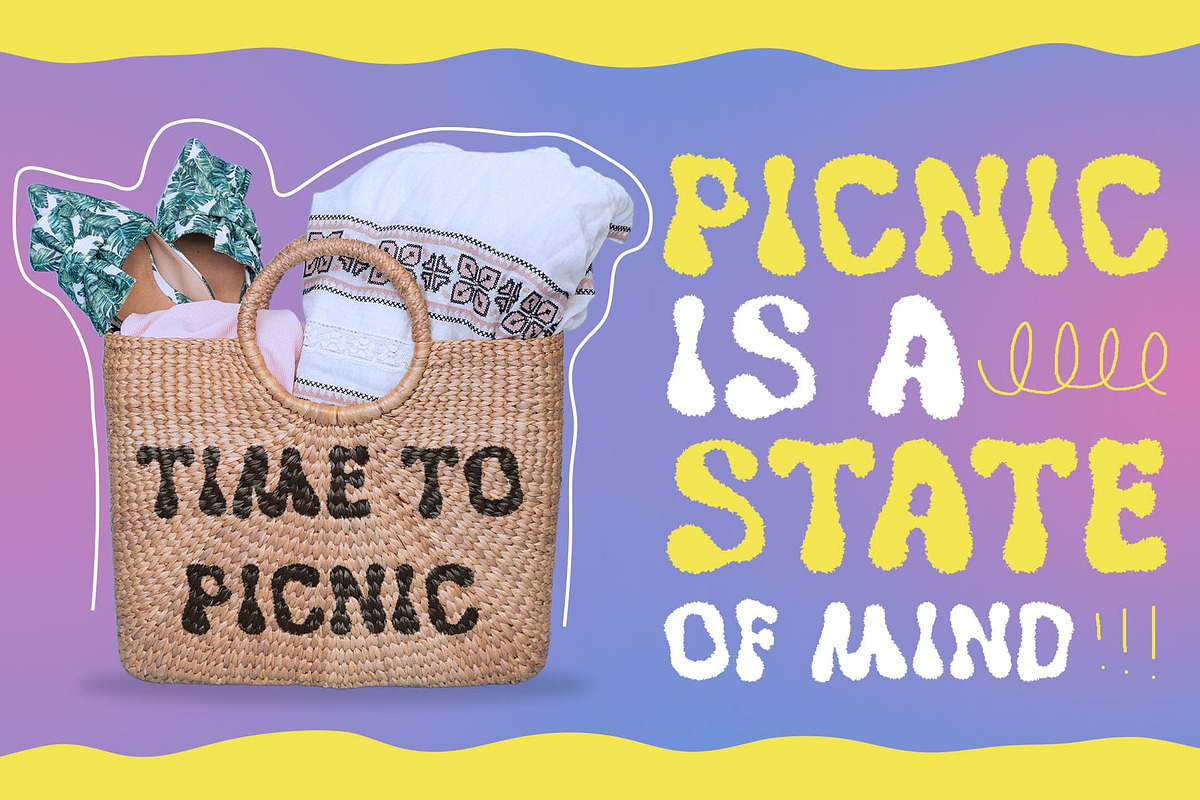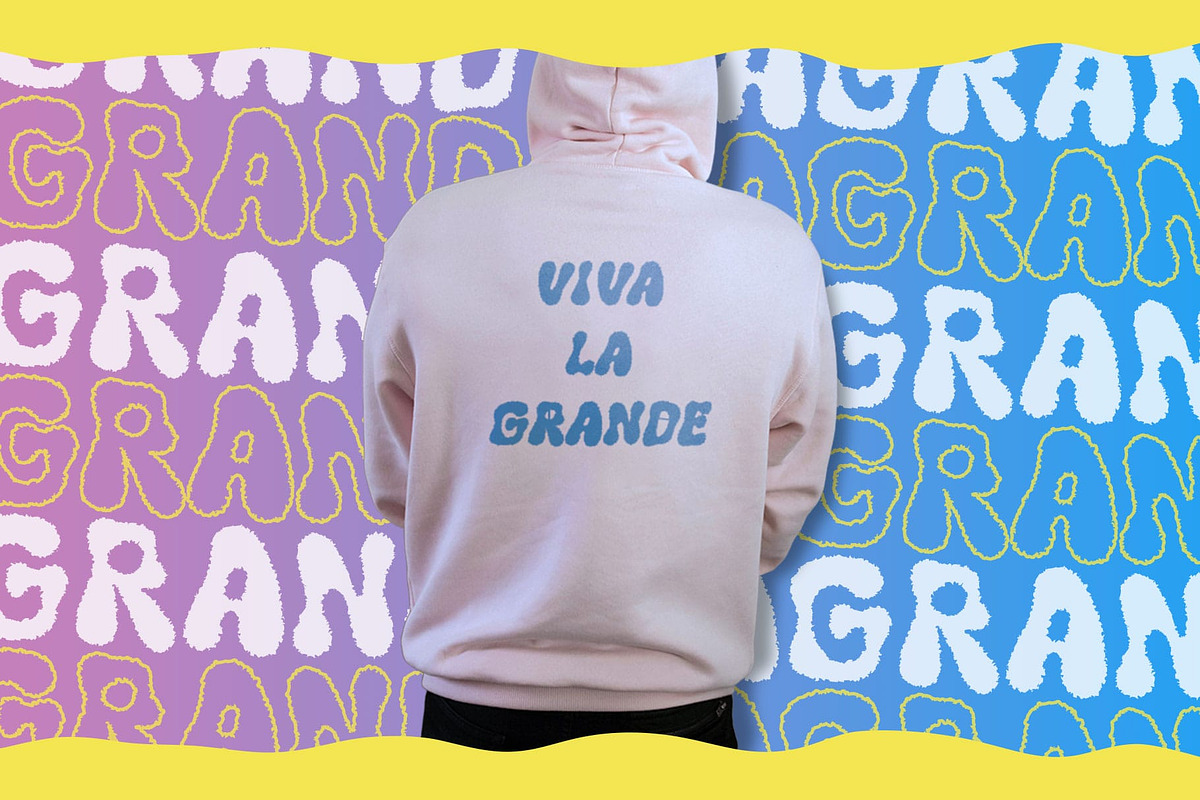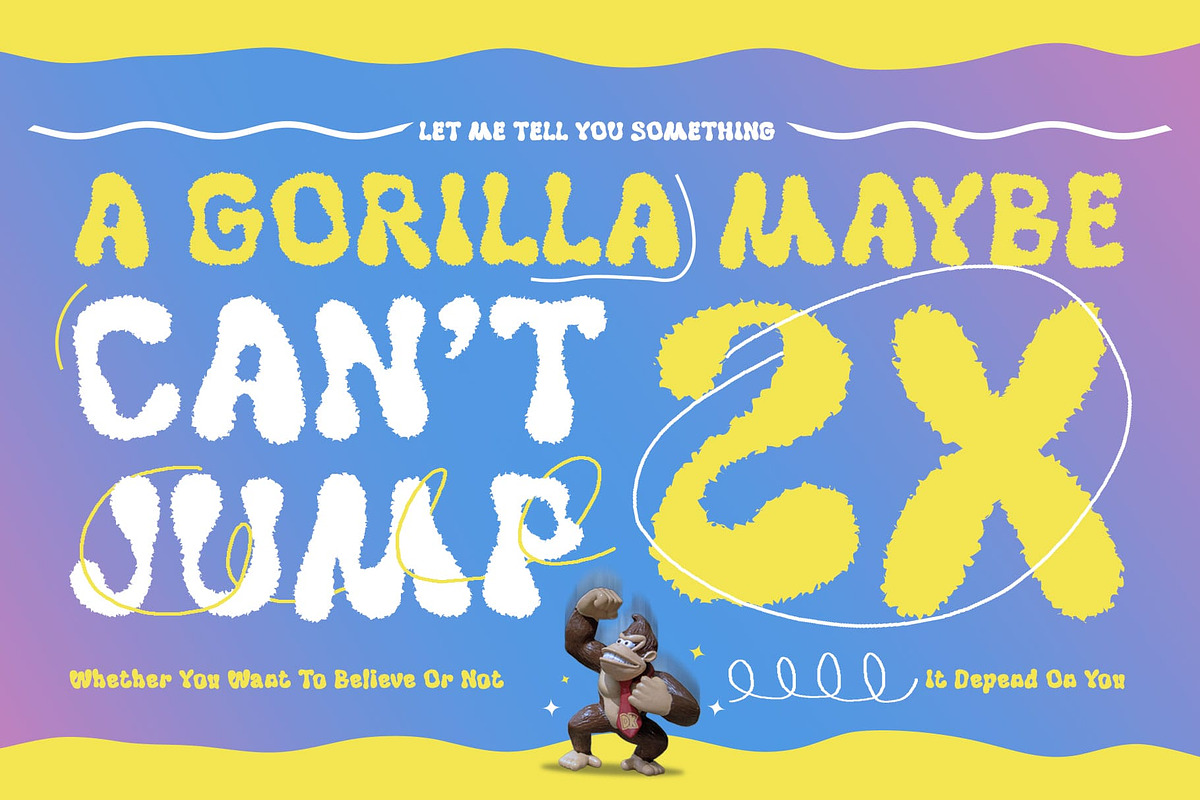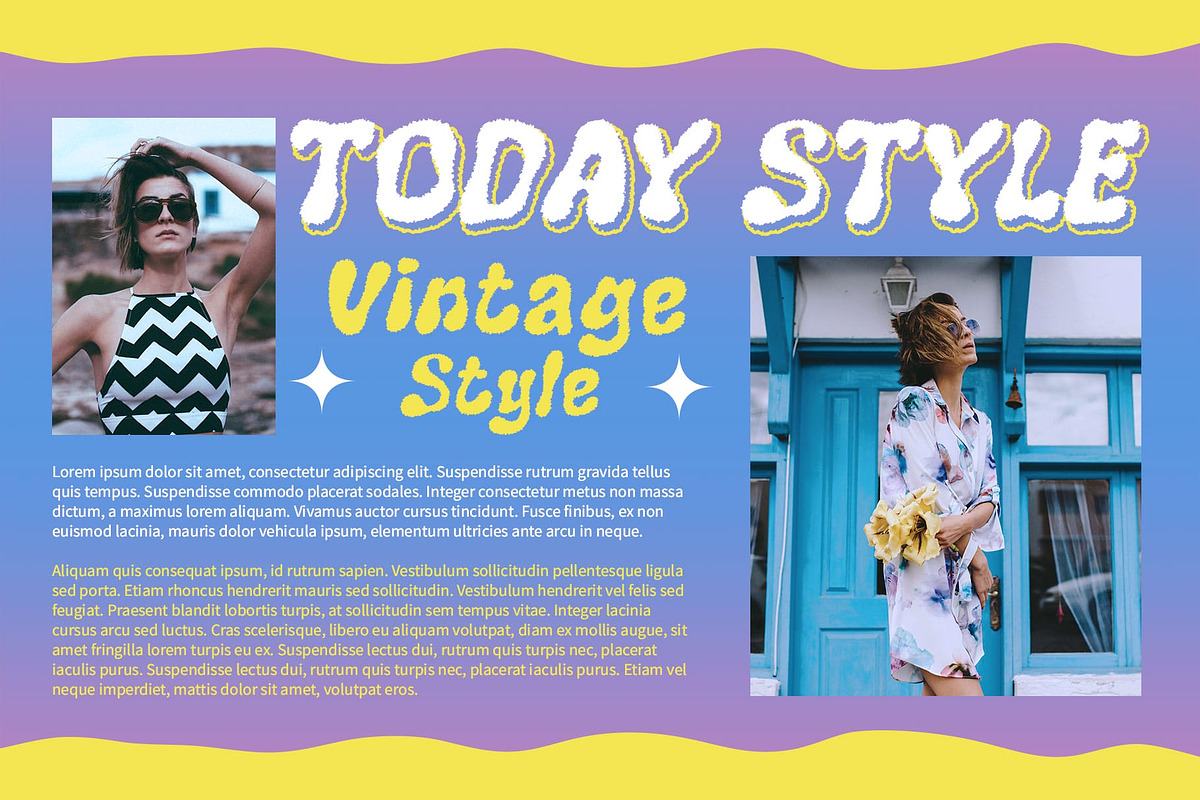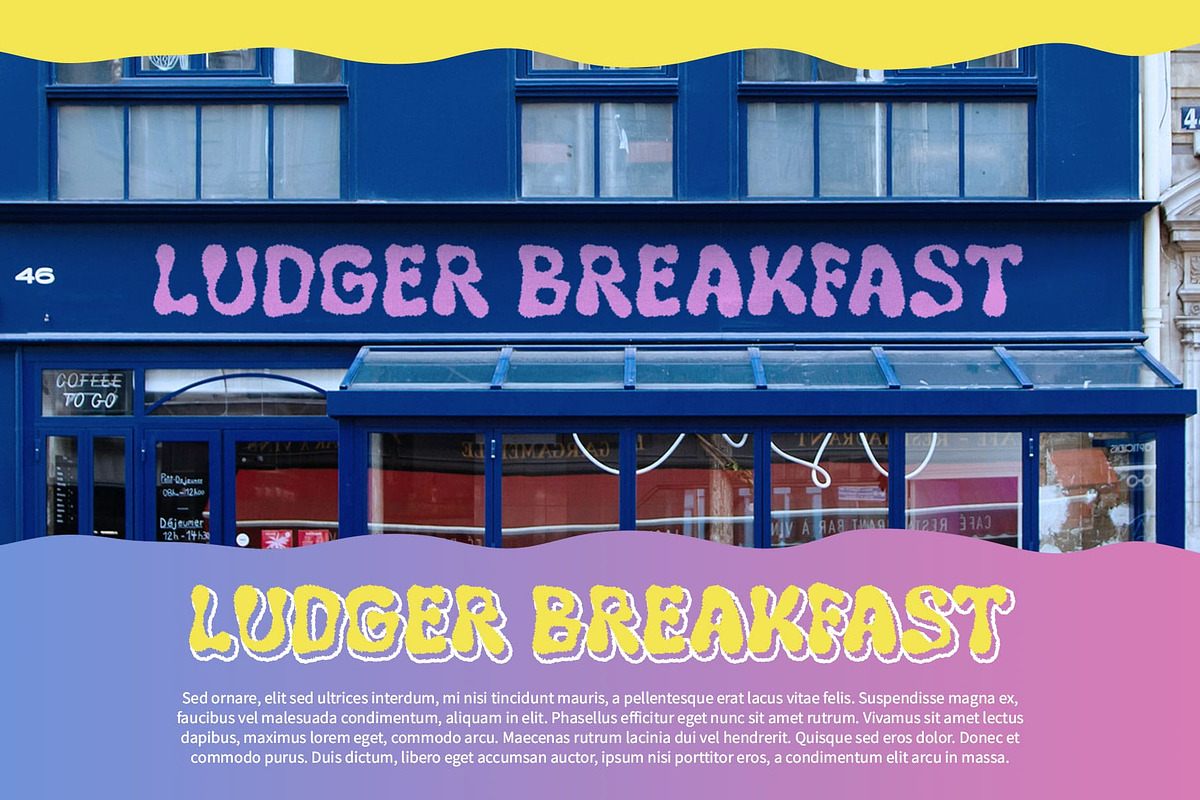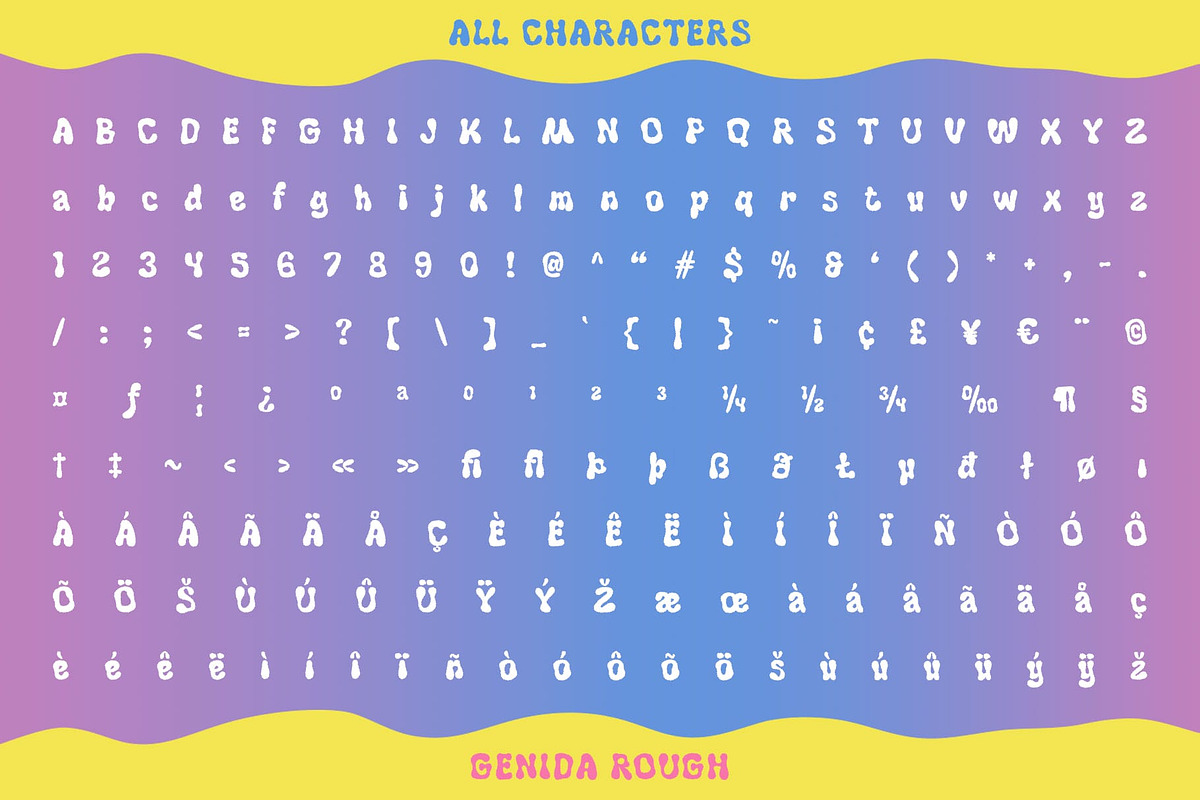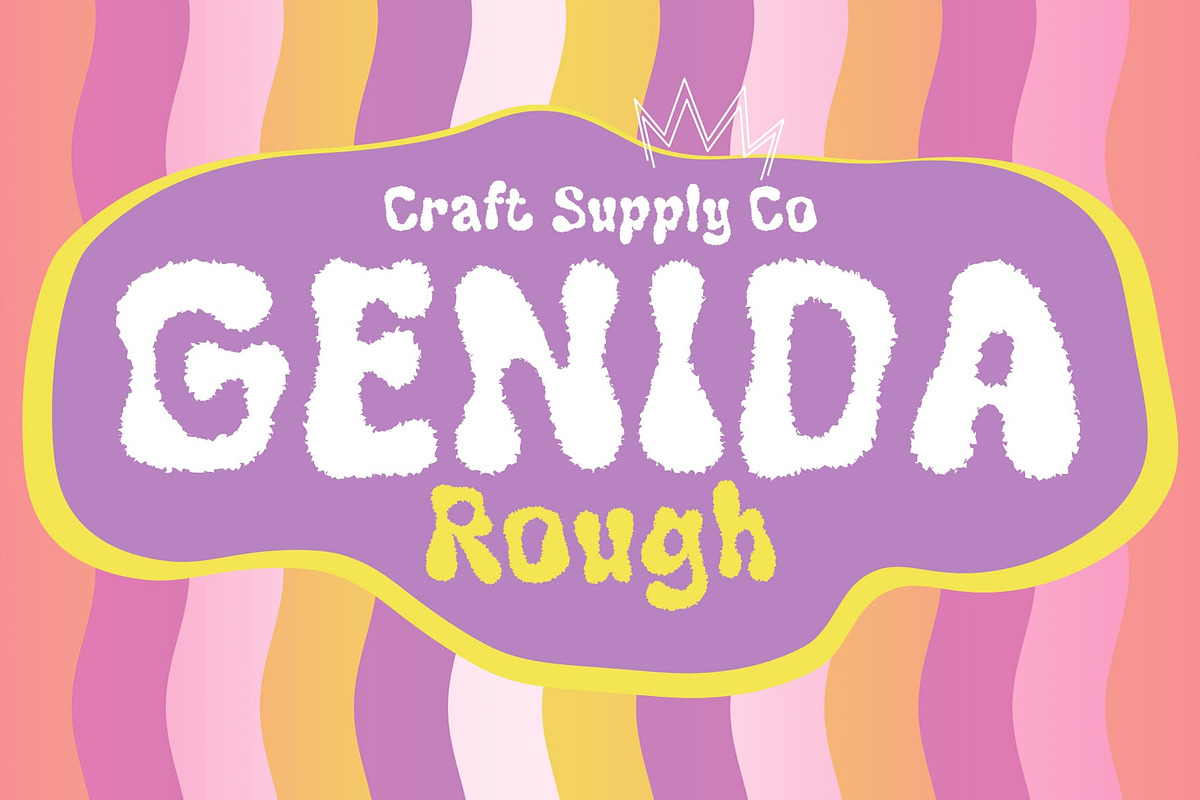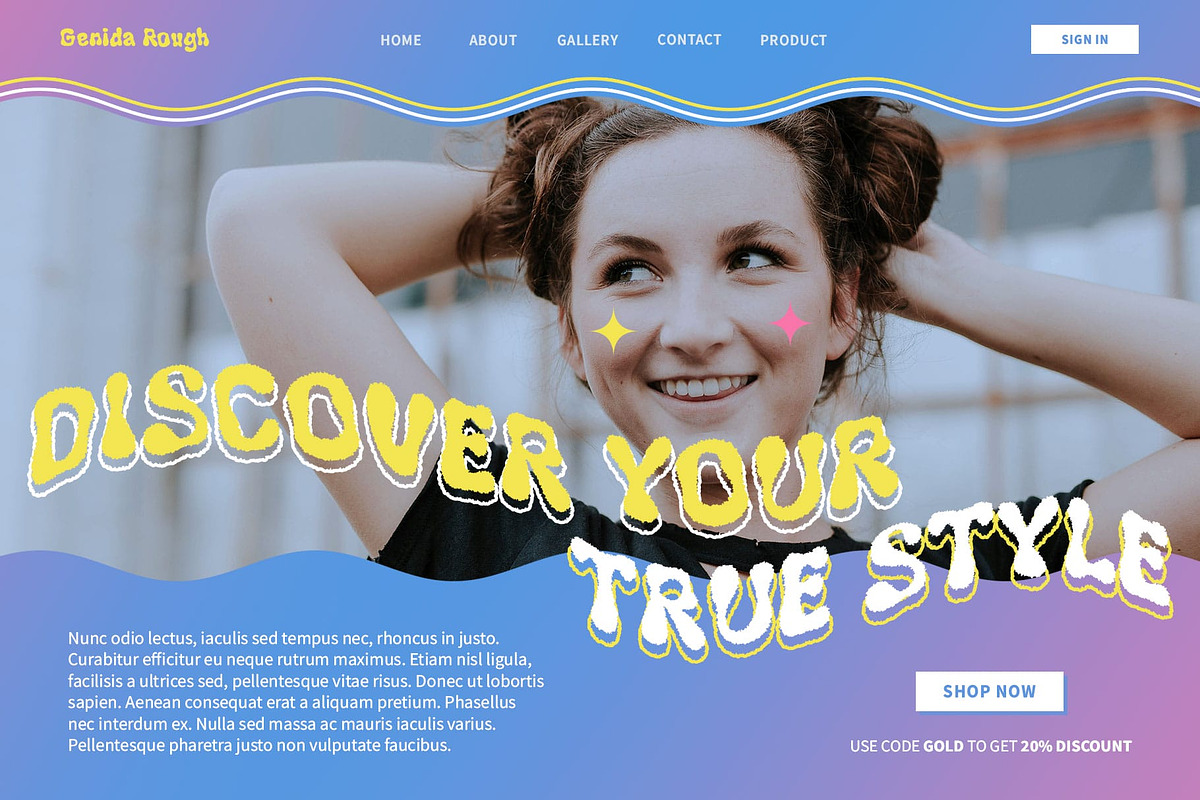
Genida Rough
Genida Rough: Where Funk Meets Vibes
Funky and Psychedelic Display Font
Genida Rough is a funky and psychedelic display font with a rough vibe, designed to inject fun and engagement into your designs. Its unique style adds a touch of playfulness to any project, making it perfect for posters, album covers, and other creative works where you want to stand out.
Expressive Roughness for Impact
With its expressive roughness, Genida Rough ensures your message resonates with impact. Each letter exudes personality and energy, contributing to a dynamic and engaging design that captures attention and leaves a lasting impression.
Versatile for Diverse Creativity
Despite its rough vibe, Genida Rough offers versatility for various design applications. From bold headlines to quirky branding, its playful demeanor and psychedelic charm make it suitable for a wide range of projects, including advertisements, packaging, and event promotions. Whether you’re unleashing your inner artist or elevating your brand’s personality, Genida Rough brings the perfect blend of funk and vibes to your design toolkit.